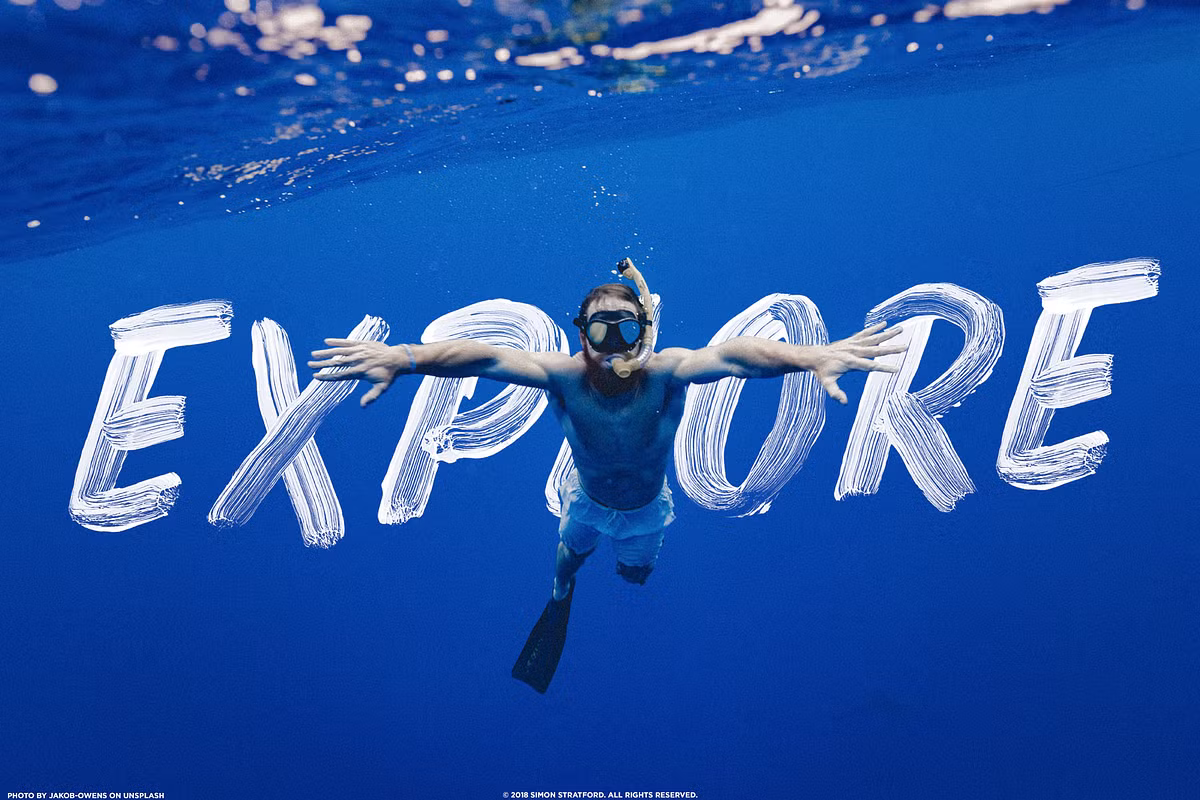
Display Font Fierce: Bold Brush Script Typeface with Punk Attitude
Introducing Fierce: A Bold Brush Script Typeface
Fierce is a brush script font that shows the punk attitude, with the strokes and the rough look. I created Fierce with paint on transparency film. Saved Fierce as an OpenType‑SVG typeface. The detail, in each stroke of Fierce feels raw and full of energy. I like the way Fierce can add the city style feel to a design. If you want a design to have the street feel you can choose Fierce.
Design Style: The Aesthetic of Fierce
The design style of Fierce is bold and brash. The design style of Fierce uses a brush script form. I notice that Fierce feels rebellious. Fierce reminds of punk rock bands. If Fierce were an act Fierce would sound like The Ramones than the pop act Rebecca Black. I think Fierce would sound like The Ramones than the pop act Rebecca Black. Fierce sounds shouty. Matches the excitement of a Friday night out. I feel that Fierce matches the excitement of a Friday night out. Fierce works well for projects that want to capture the thrill of nightlife. I use Fierce for projects that want to capture the thrill of nightlife.
Visual Characteristics
I notice that Fierce has letters. I also see that Fierce includes details that let the paint texture show. The brush strokes on Fierce look like they were made with a brush giving each letter a feel. The attention to detail, in Fierce makes Fierce a good choice, for uses where the look matters a lot.
Color and Texture
One of the highlights of Fierce is that Fierce uses OpenType-SVG technology. OpenType-SVG technology gives Fierce a color range and texture that the regular fonts cannot copy. The design of Fierce feels alive and moves. That makes Fierce a good choice, for posters, packaging, branding and advertising. The bright colors and the bold brush strokes of Fierce can turn any design into a standout piece.
Character Sets: What Fierce Offers
Fierce gives me the set of characters that I can use in creative projects. The OpenType‑SVG version of Fierce has letters, numbers, punctuation and symbols. Uppercase letters, numbers, punctuation and symbols let me make headlines and statements.
Character Details
- Uppercase Letters: A-Z (unicase font, no lowercase letters)
- Numbers: 0-9
- Punctuation: Various symbols for enhanced expression
- Marks: Additional symbols to complement your designs
Limitations
I have found that the OpenType‑SVG version of Fierce only includes Basic characters because of size limits. The OpenType‑SVG version of Fierce does not include Western, Central or South Eastern European glyphs. Designers who need languages have to keep the OpenType‑SVG version of Fierce limits, in mind. As technology changes the OpenType‑SVG version of Fierce may get updates that add glyph support without cost.
Use Cases: Where to Implement Fierce
The practical uses of Fierce are many. That makes Fierce a good choice, for design projects. Fierce has an expressive look that works well for any design that wants to stand out or make a statement. Here are some of the use cases where Fierce can shine:
Posters and Flyers
I have used Fierce on the posters and the flyers. I see how it grabs the attention. When the event is a music festival, an art exhibition or an urban event the strokes of Fierce catch the eye and show excitement.
Branding and Packaging
Fierce gives the brand an identity. The punk aesthetic of Fierce fits the products that target the audience. I would use Fierce on the packaging, for craft beers, streetwear or art supplies to add the feel.
Advertising and Marketing
In advertising first impressions matter. Marketers can use Fierce in marketing materials to create a sense of urgency and excitement. I have used Fierce. I see the impact. Whether it is, for the event or the new product launch Fierce bold style captures attention. Draws people in.
Signage
Fierce has a look that makes Fierce good, for signs in the city. I have seen work on signs in the city. A pop up shop or a festival can use a sign, with Fierce. That sign can show brand attitude and Fierce aesthetic clearly.
Pairing Suggestions: Enhancing Your Designs
When you work with a brush script font, like Fierce you pick typefaces that match the brush script font like Fierce. Those typefaces bring out the brush script font, like Fierce’s look without making the design too busy. Here are some pairing ideas:
Sans Serif Fonts
I think pairing Fierce with a sans serif font creates a contrast. Helvetica or Montserrat are choices. Those fonts add a feel. The modern feel lets Fierce be the point of the design. The design lets Fierce shine.
Learn the features the use cases and the pairing choices of Fierce. You can add Fierce to your projects and your designs will stand out in a market. Unleash your creativity. Embrace the attitude. Let Fierce, the bold brush script typeface transform your work.